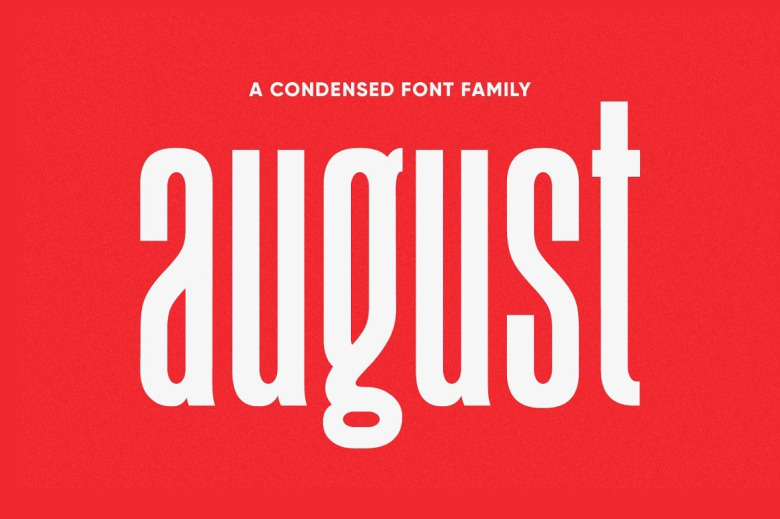
August Typeface
Introducing August Typeface! August designed by Ellen Luff. August is a magnificent play of extremes. A powerful and beautiful condensed sans serif display typeface. It brings charming curves and satisfying patterns to traditional condensed fonts.
It’s designed for impact, without sacrificing style or legibility. It looks especially stunning in large scale, although it still carries a punch at smaller point sizes. It’s born to be a blessing for designers and viewers alike!